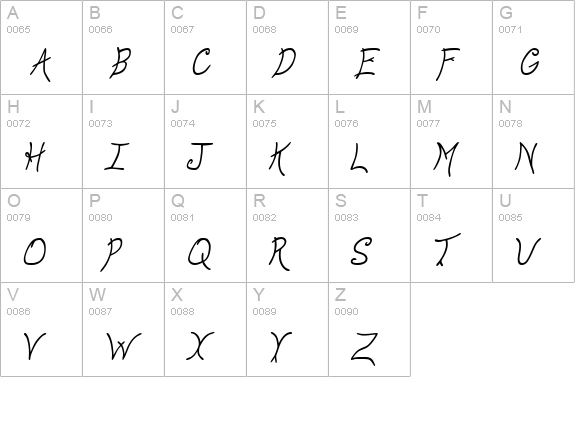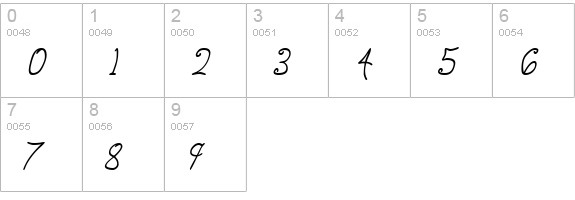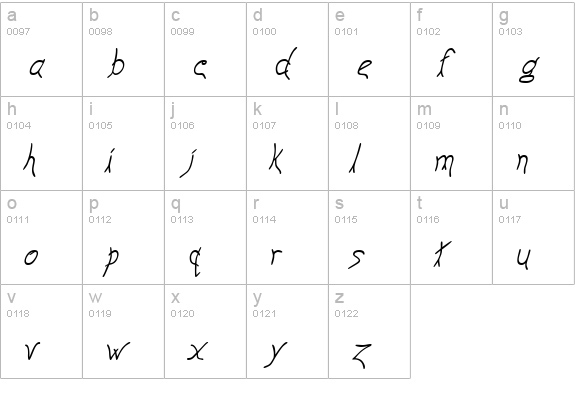
Anyway Italic Font Details
Anyway Italic is a distinctive, italic variant in the Anyway typeface family \xE2\x80\x94 well suited to design and typography projects.